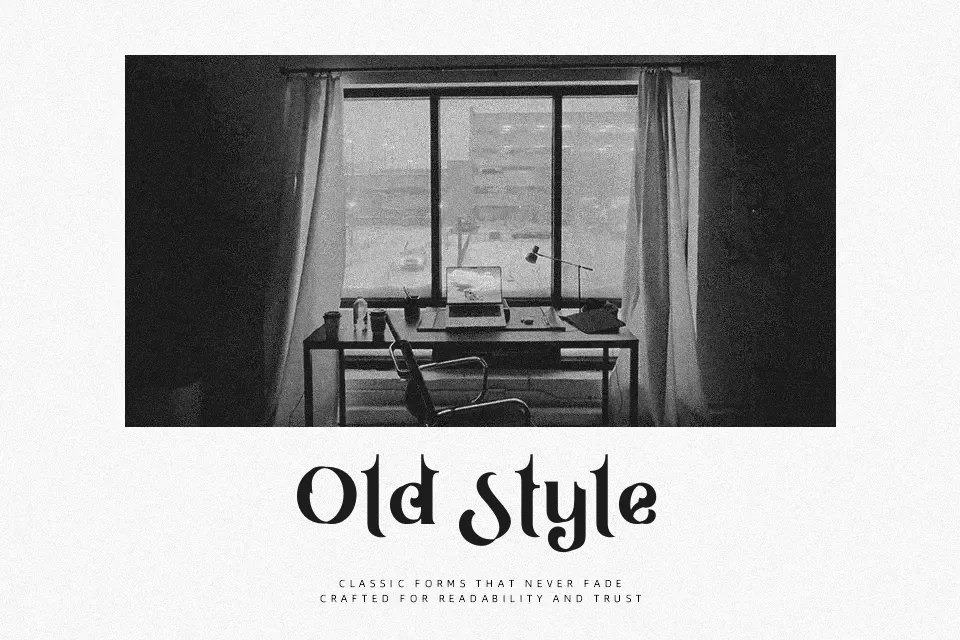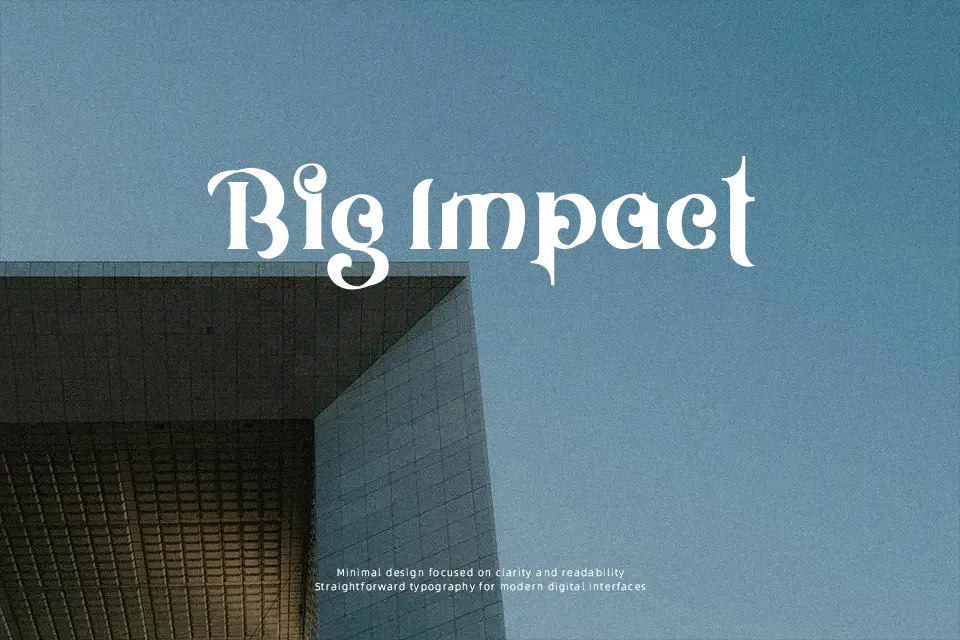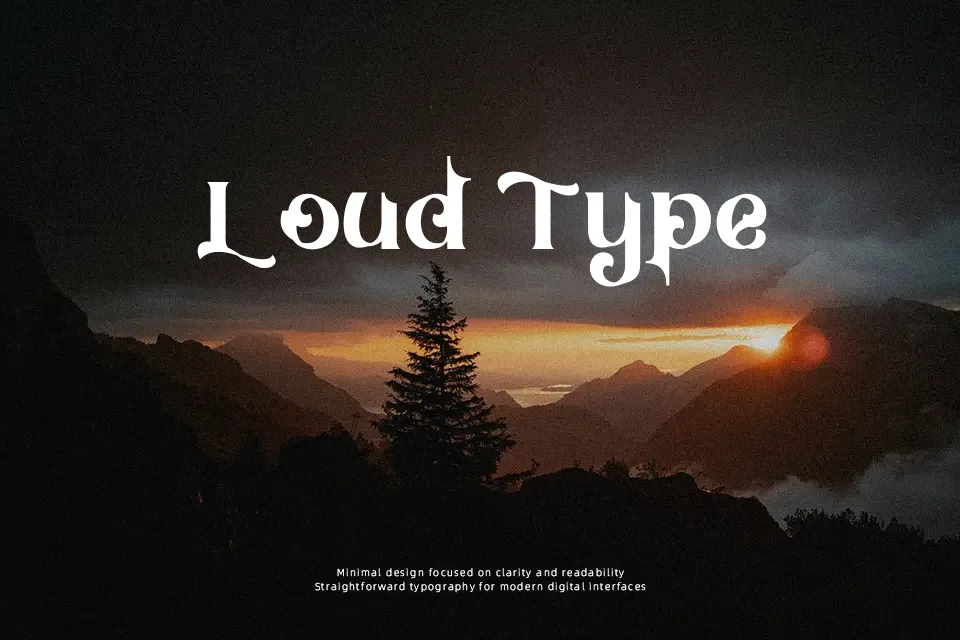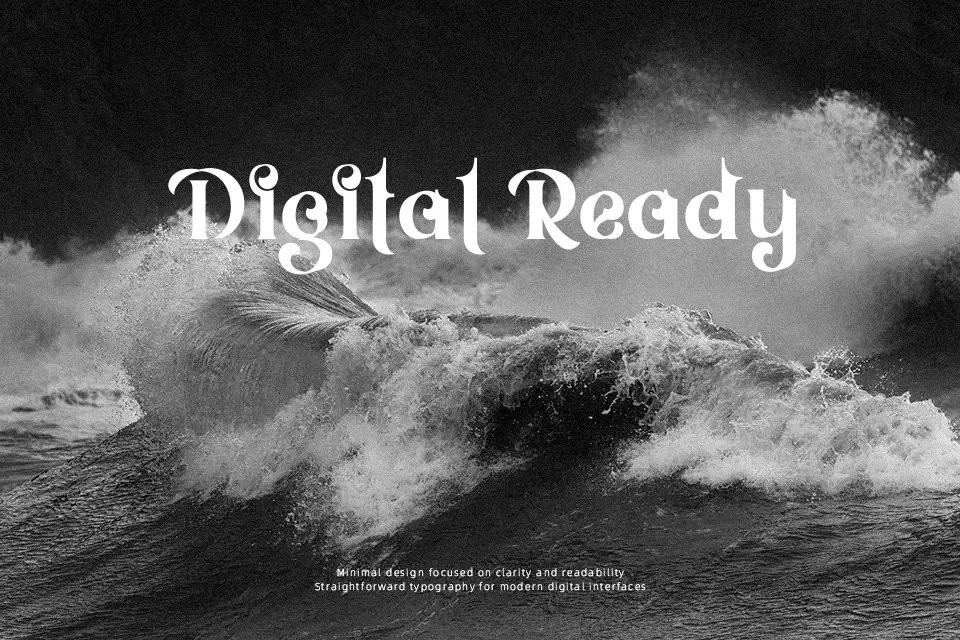
Raich Artifex Font
Raich Artifex Font is structured as a bold display serif that immediately draws attention with its extreme stroke contrast and classic proportions. The heavy vertical stems stand out sharply against the delicate hairline curves, while curled and spiked terminals add a decorative, vintage flair to the overall aesthetic. Spacing is relatively tight, providing a compact and dramatic visual rhythm that enhances its classic appeal. In practical application, the striking letterforms perform exceptionally well in large headlines and luxury branding projects where visual impact is a priority. However, the high decorative complexity and strong contrast become less effective at smaller sizes, reducing continuous reading comfort. Consequently, this typeface is less suitable for dense editorial layouts or long paragraph text.
luxury branding campaigns
vintage product packaging
wedding invitation headers
large editorial headlines
corporate legal documents